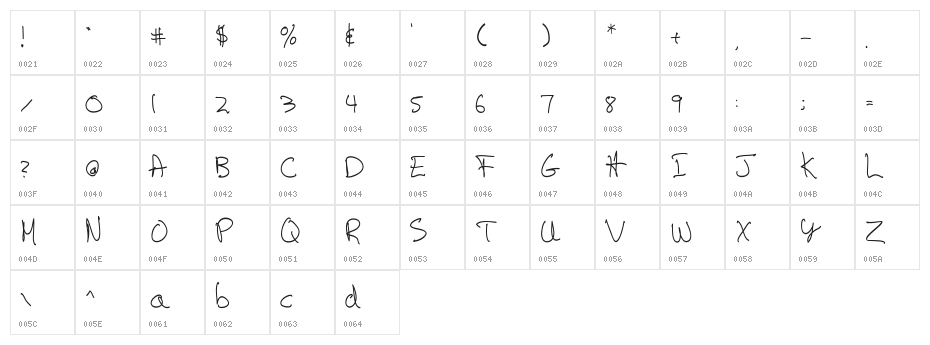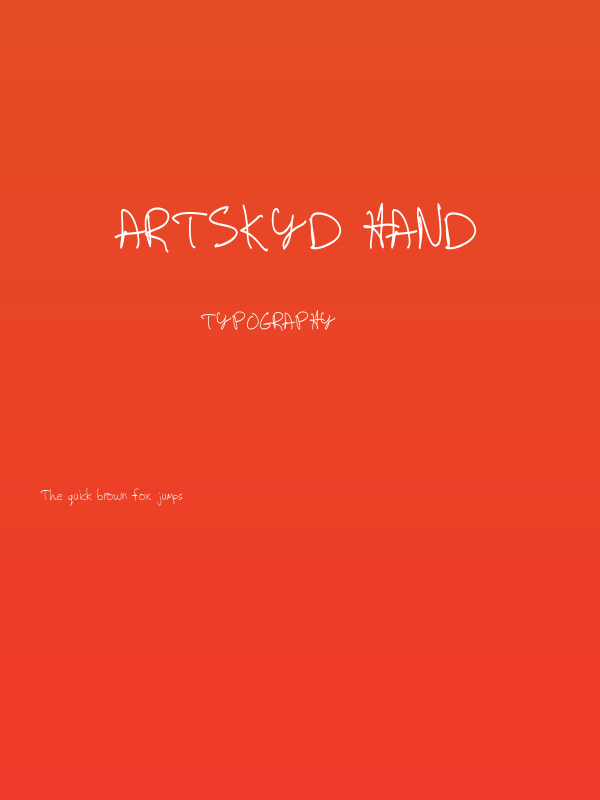
Artskyd Hand Font
Artskyd Hand Description
This font exudes a casual, handwritten style, characterized by its playful and informal appearance. The letters are uneven and slightly slanted, giving it an authentic, personal touch. The strokes are consistent in thickness, maintaining a uniform look throughout. The uppercase letters are bold and prominent, while the lowercase letters are more relaxed and flowing. Numbers and special characters follow the same handwritten aesthetic, making the font versatile for various uses. Its overall appearance is approachable and friendly, ideal for projects that require a personal or informal tone.
| Use Case | Headlines, Informal text, Personal projects |
| Proposed Projects | Ideal for greeting cards, personal blogs, informal invitations, and children's books. |